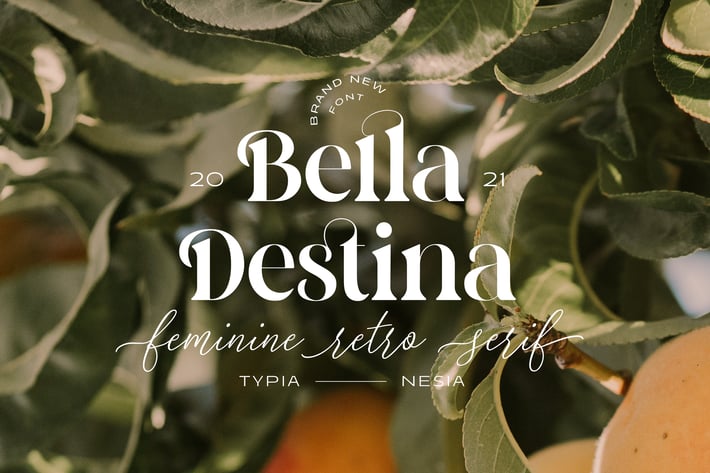
Bella Destina - Beauty Romantic Serif Font
Bella Destina - Beauty Romantic Serif - Elegant Glamour Expressive Modern Classy Display Serif Font
Bella Destina font is perfect for your up coming projects. Such as luxury logo and branding, classy editorial design, woman magazine, cosmetic brand, fashion promotional, art gallery branding, museum, historical of architectural, boutique branding, stationery design, blog design, modern advertising design, card invitation, art quote, home decor, book/cover title, special events and any more.